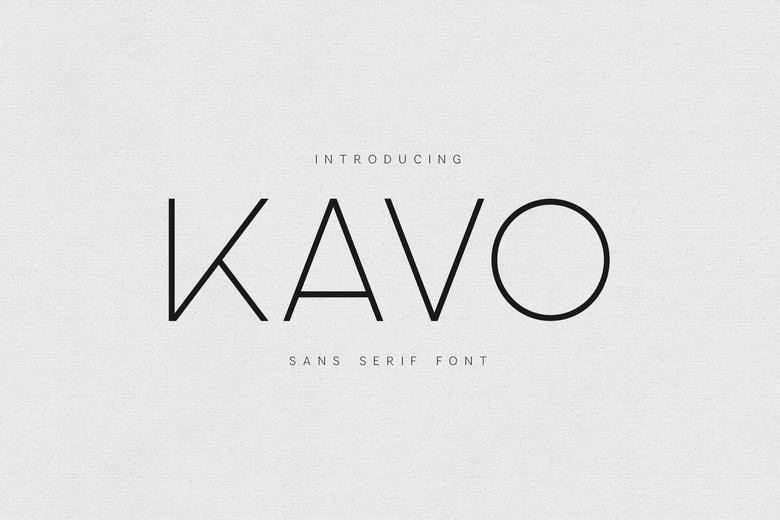
Kavo Font
Kavo font is the ultimate choice for designers who want to find a minimal ultra-thin sans serif that is the essence of modern refinement. This Kavo font is painstakingly designed using light, airy lines and a perfect geometric structure, which provides a sophisticated aesthetic tone that conveys an air of calmness and intellectual sharpness.
In an age of visual overload, the Kavo font stands out through its breathing room providing it is the ultimate tool for high-end branding, luxury “less-is-more” logos and avant-garde editorial layouts. The equal measures of this Kavo font make sure that your text is readable and at the same time, affirms the whisper-quiet beauty.
It fits the broad UI/UX designs, fashion look books, and minimalist posters when the white space is as significant as the actual text on the page. The Kavo typeface is the smart choice whether creating an international corporate identity or a boutique lifestyle site that needs the multilingual support and business-level polish to take such a project to the global level.
Kavo Sans Serif Font